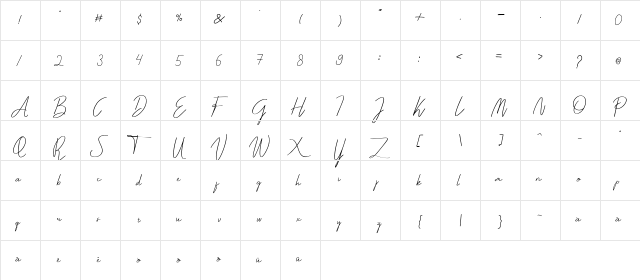
Darcey Oliver Regular
Design Context for Darcey Oliver Typeface
Darcey Oliver is a composed and adaptable typeface that performs quietly and consistently across a wide range of design contexts.